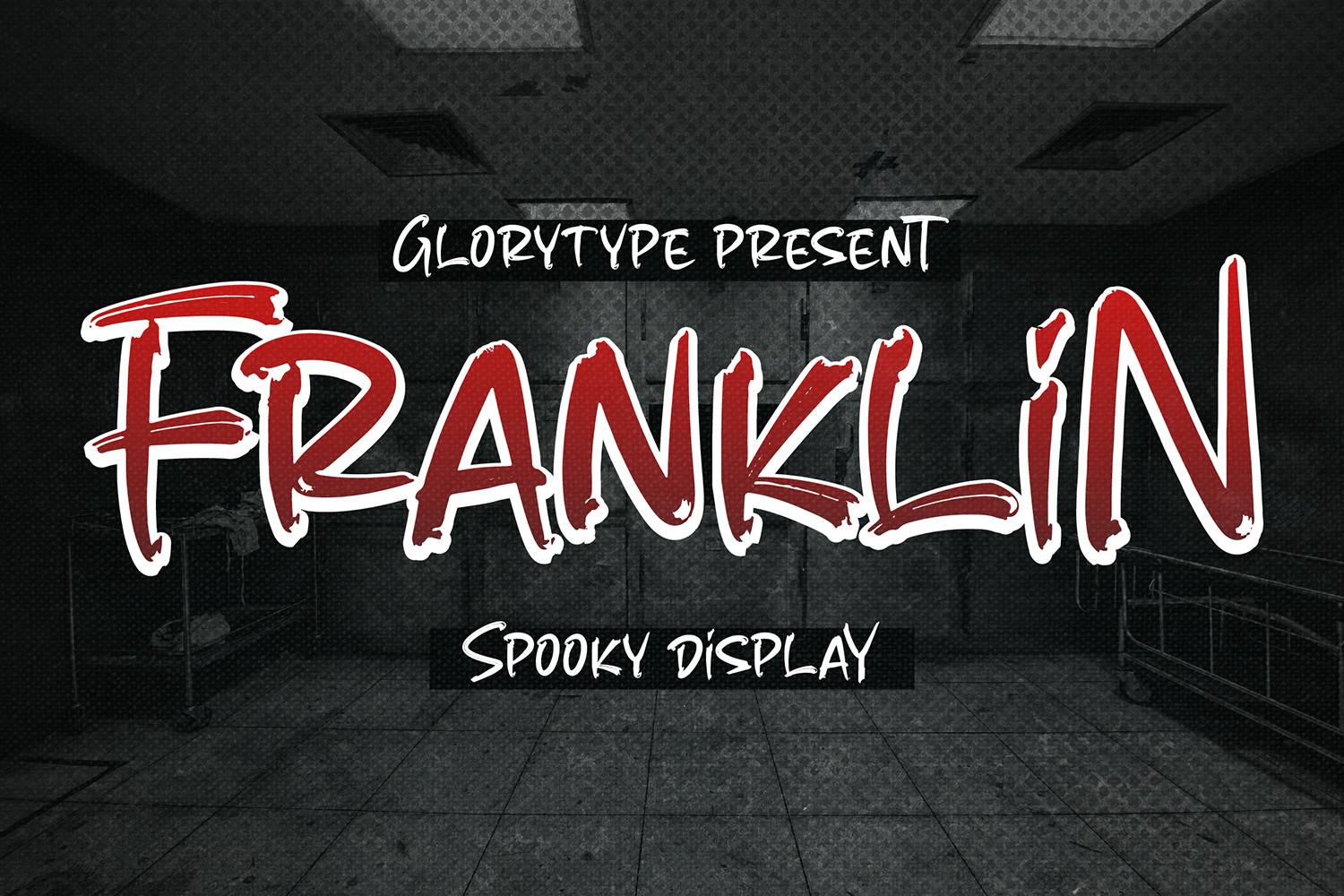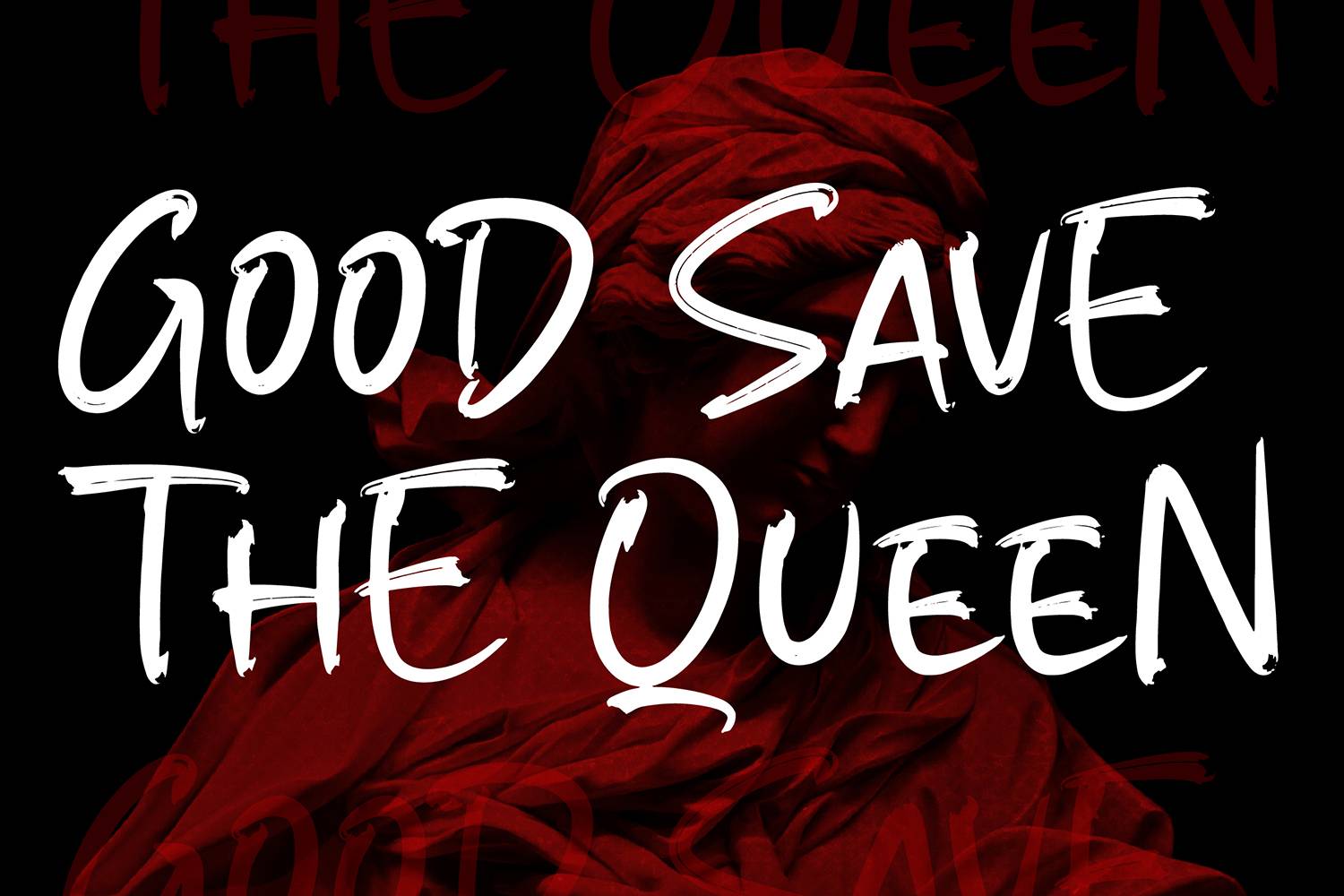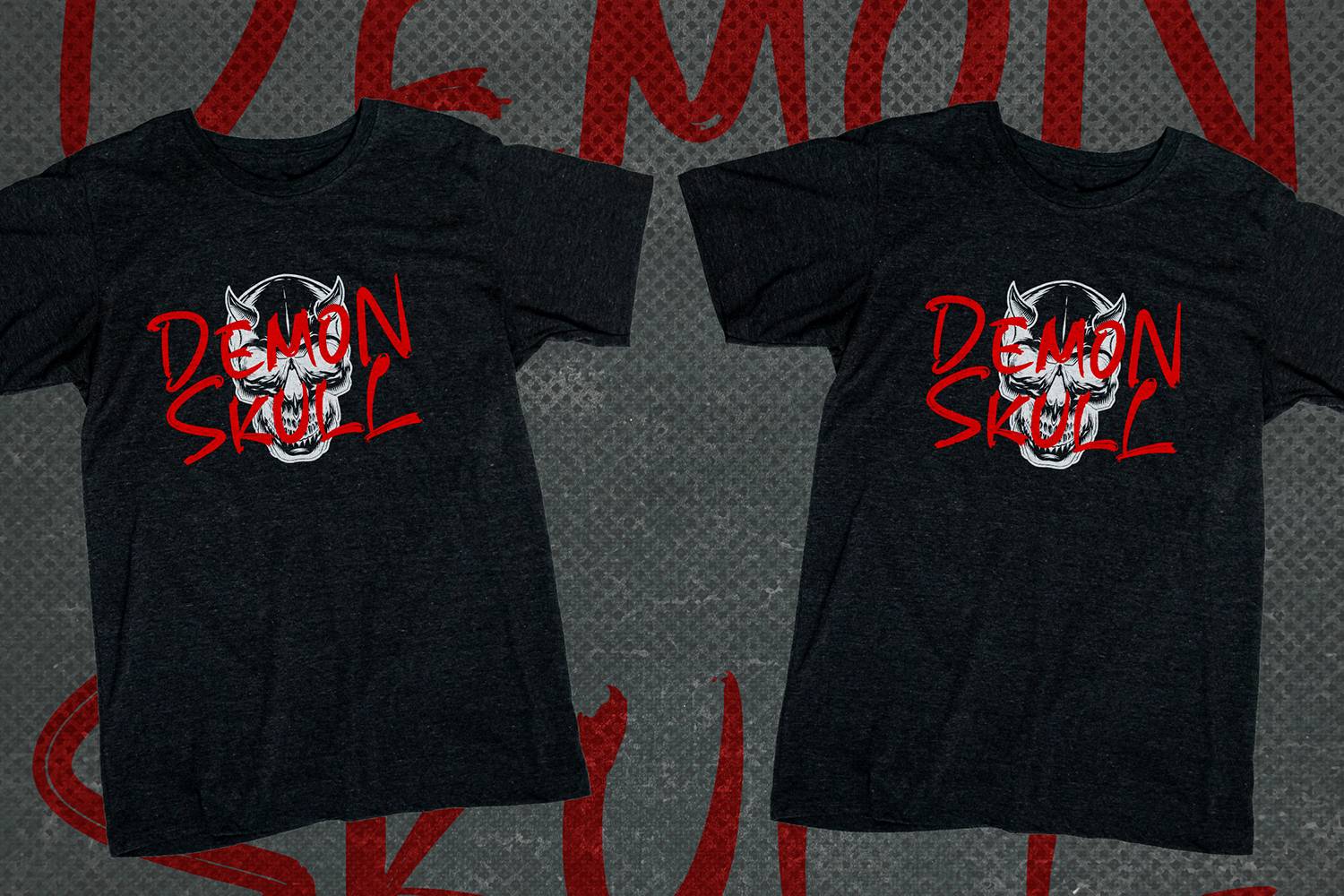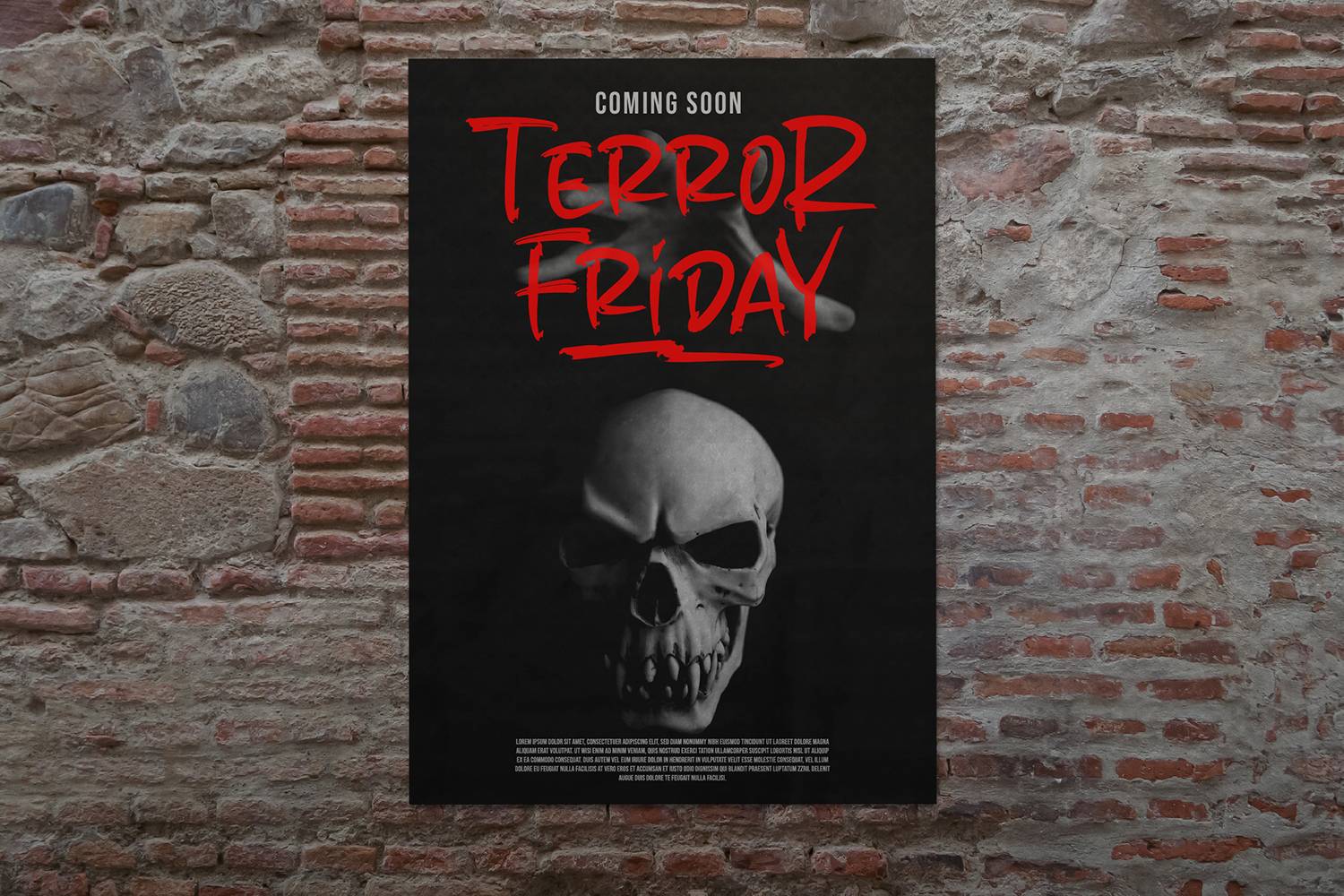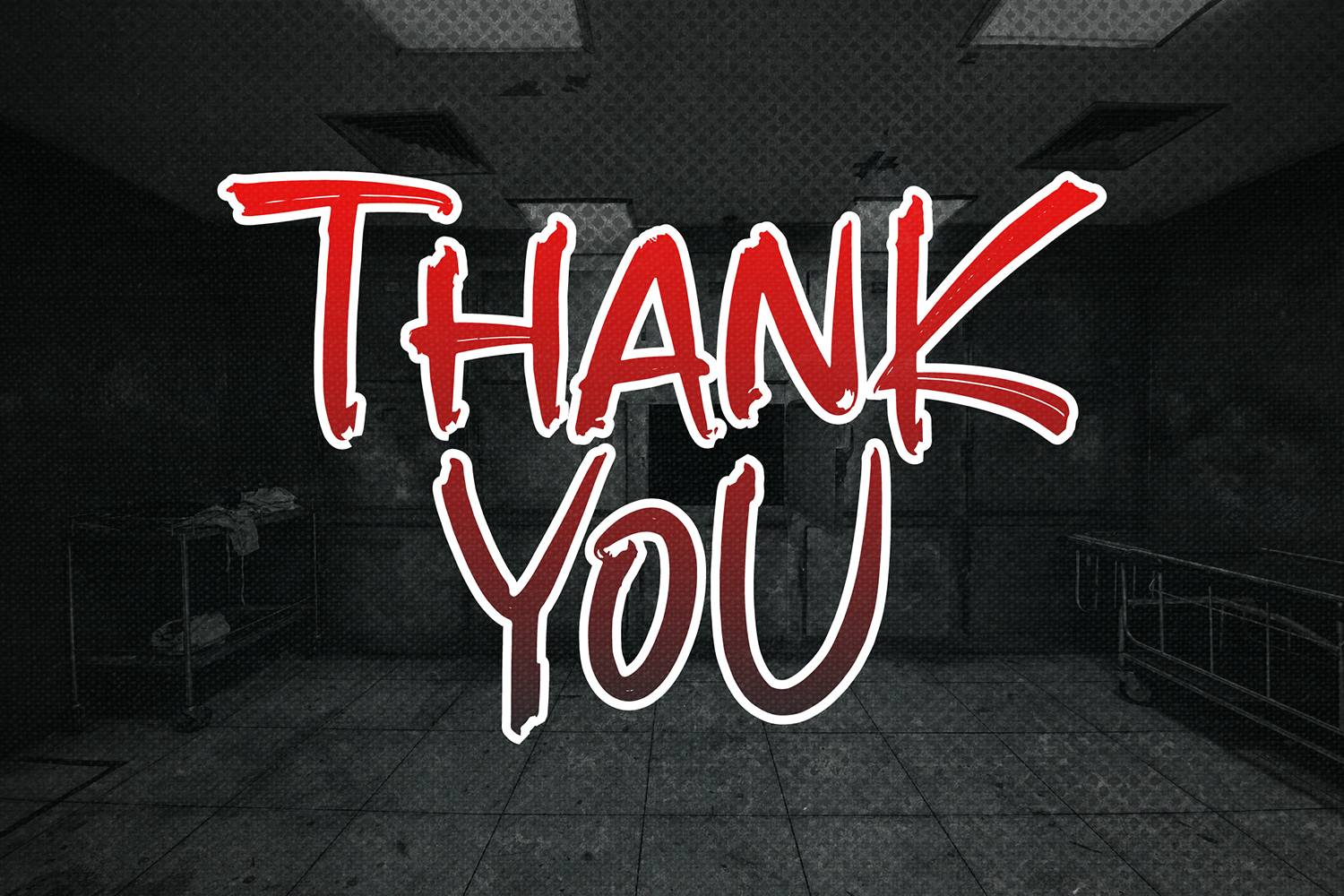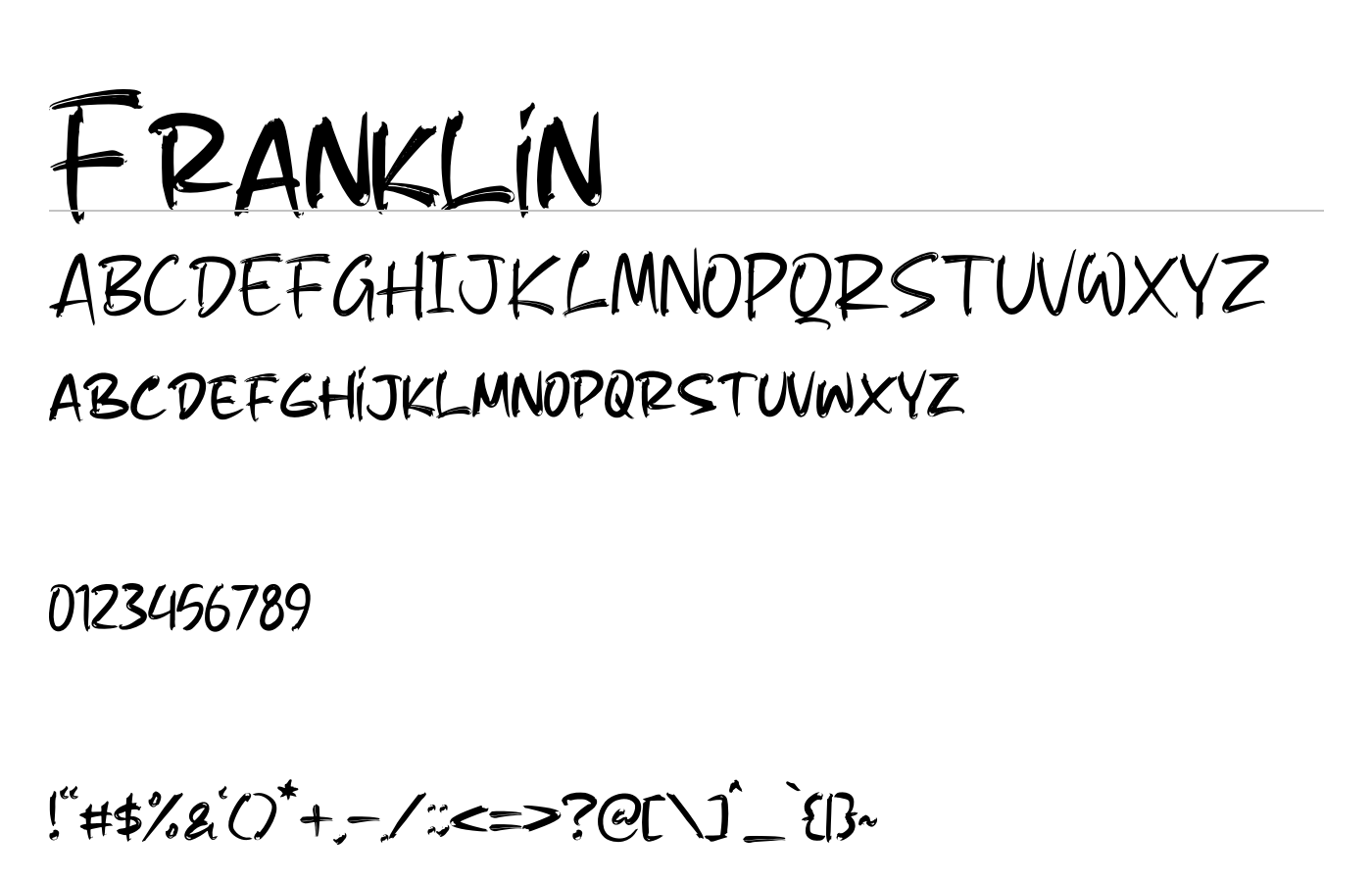
Franklin is a lively, hand-drawn script font with an energetic and casual feel, characterized by irregular, brush-like strokes and a slightly condensed, upright structure. Its playful yet bold letterforms make it well-suited for creative projects, informal branding, posters, and headlines where a dynamic, personal touch is desired. This font adds a sense of spontaneity and artistic flair, making it ideal for designs that want to convey originality and expressiveness.
Franklin Font
About Franklin Font